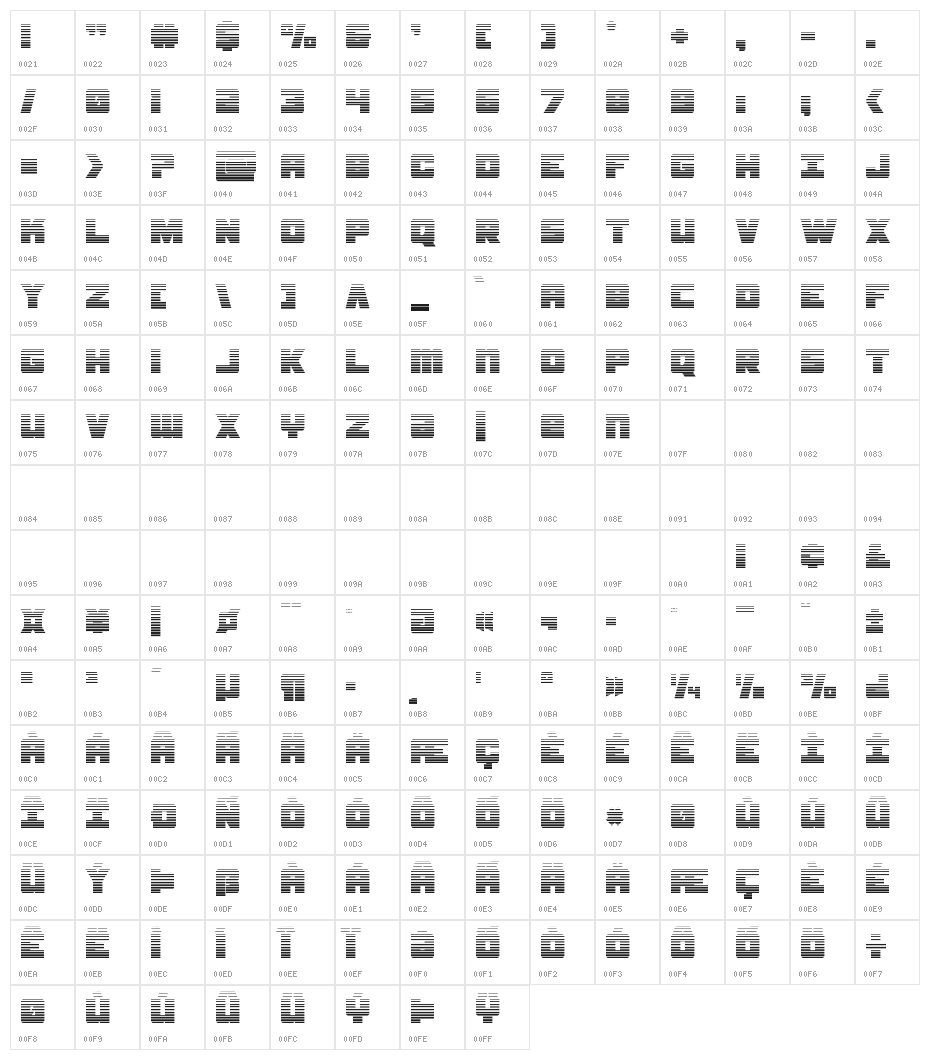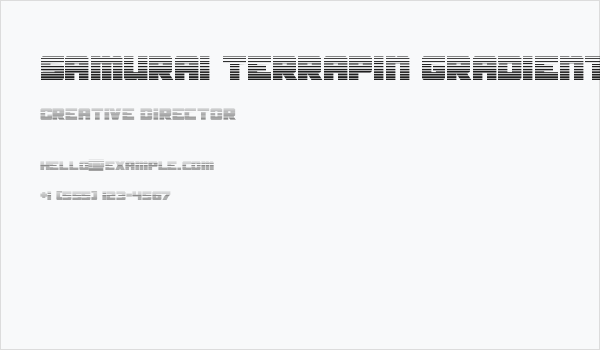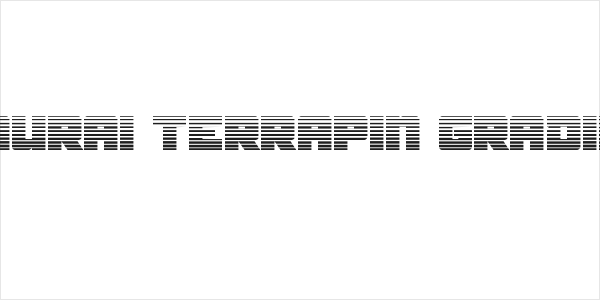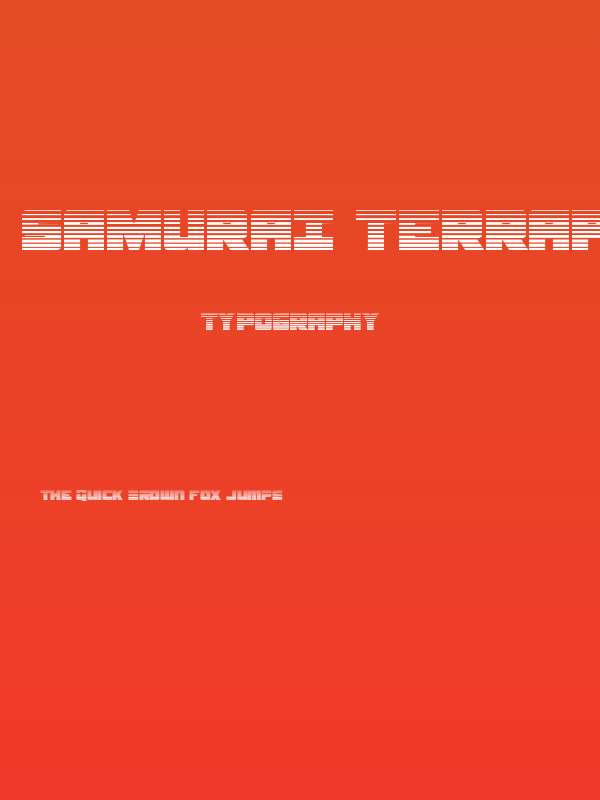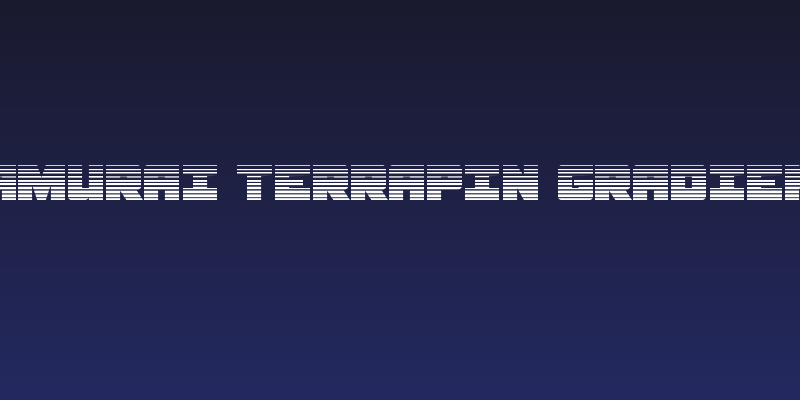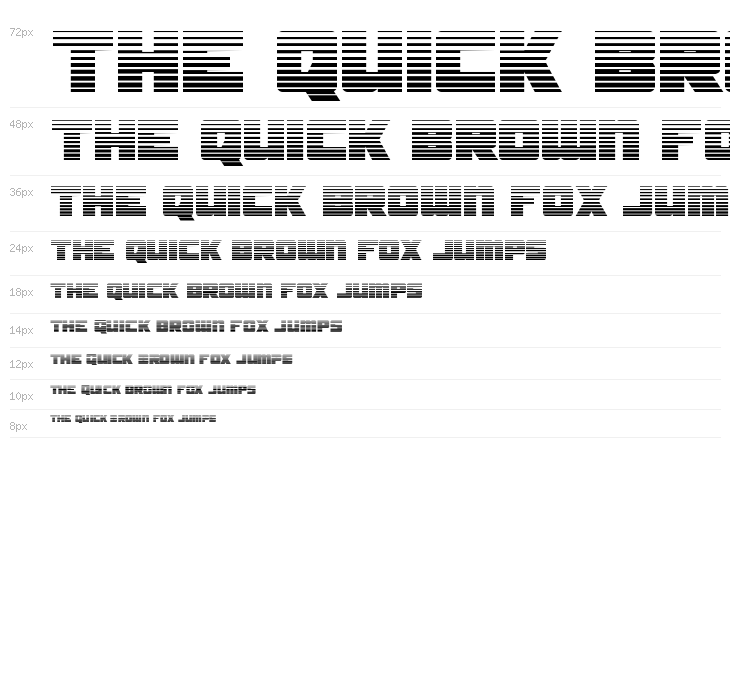
Samurai Terrapin Gradient Font
Samurai Terrapin Gradient Description
This font features a bold, futuristic design with a distinct striped pattern running horizontally across each character. The uppercase and lowercase letters maintain a consistent width, creating a uniform appearance. The geometric shapes and sharp angles give it a modern and edgy feel, making it stand out in any design. The numerals and special characters follow the same striped motif, ensuring cohesion throughout the typeface. This font is ideal for projects that require a strong visual impact and a contemporary aesthetic.
Proposed ProjectsIdeal for sci-fi themed posters, video game titles, and modern branding projects.